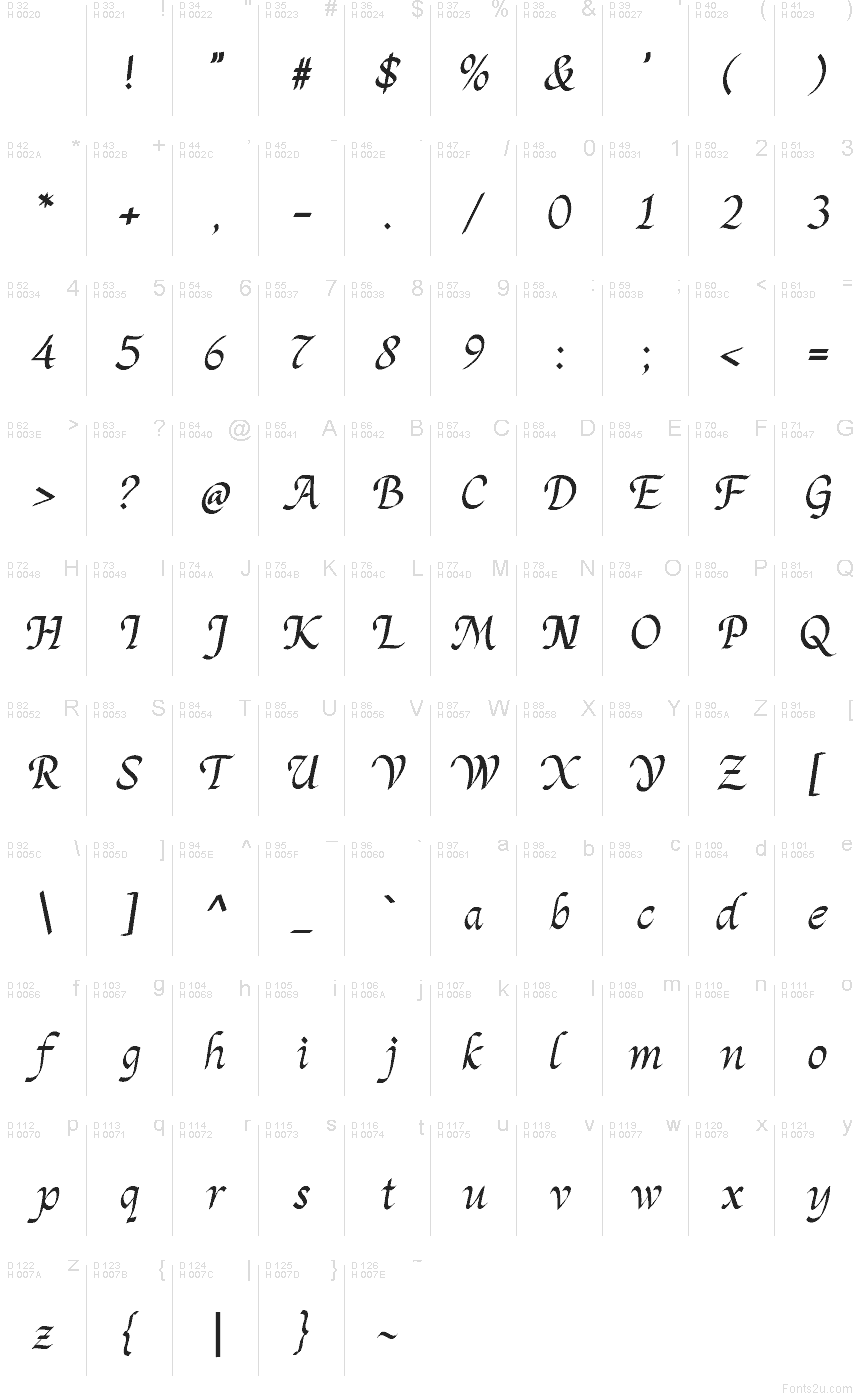
Flowing Romance Italic
Flowing Romance Italic font by Sign Studio is a free calligraphy typeface that feels like it’s been brushed straight onto a love letter. Long, sweeping connections glide from letter to letter, while the slightly textured strokes keep it from feeling too polished or digital. The Flowing Romance family here leans into a classic, slanted script style that’s airy, legible, and quietly luxurious.
Using Flowing Romance Italic, your layouts gain that soft, handwritten drama that wedding suites, engagement announcements, and vow booklets crave. This free font also works beautifully on perfume packaging, boutique logos, save-the-date cards, and romantic quote graphics. Pair it with a clean sans in small caps for supporting text, and let Flowing Romance Italic take center stage at larger sizes where its graceful curves can really breathe.